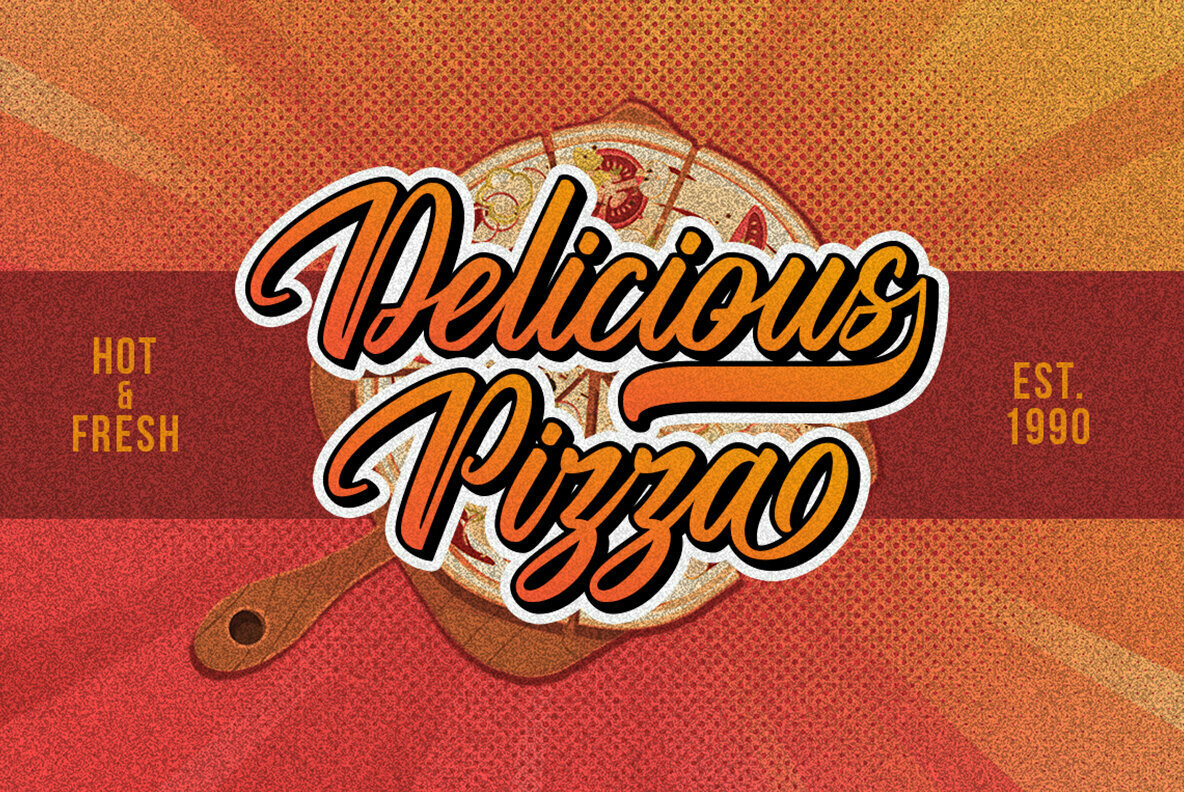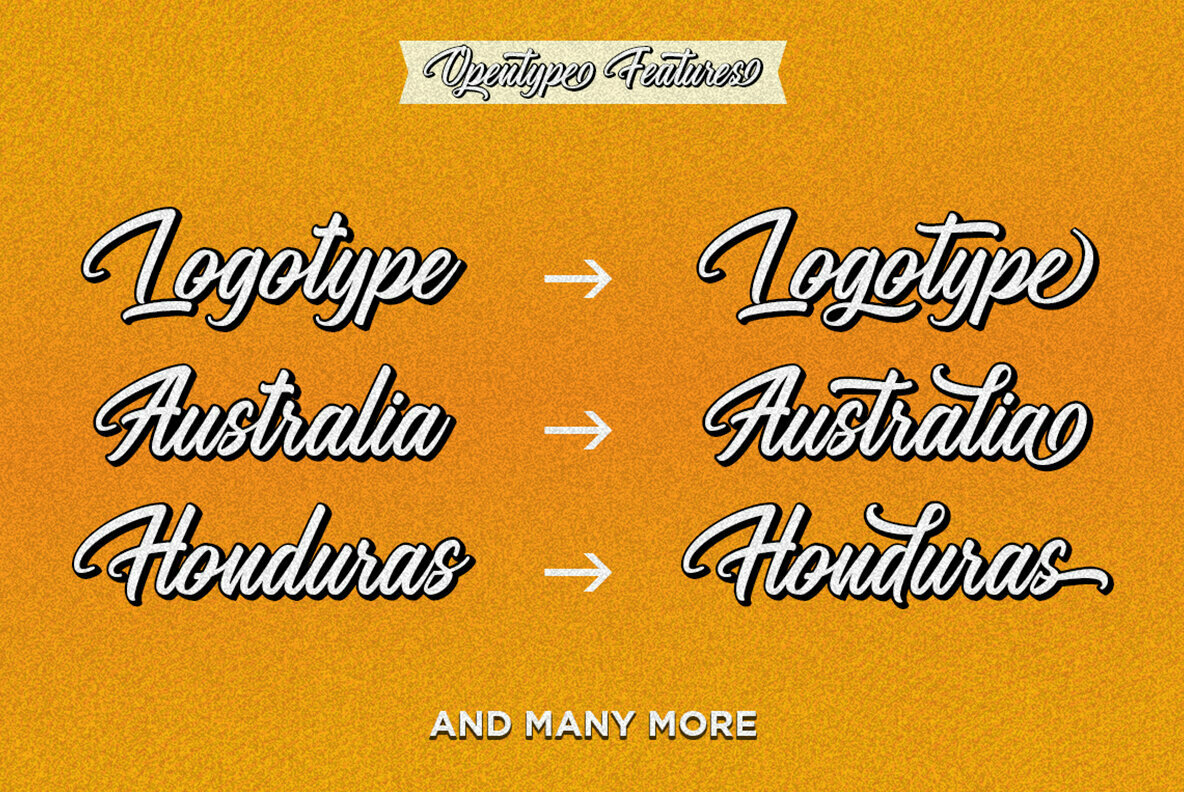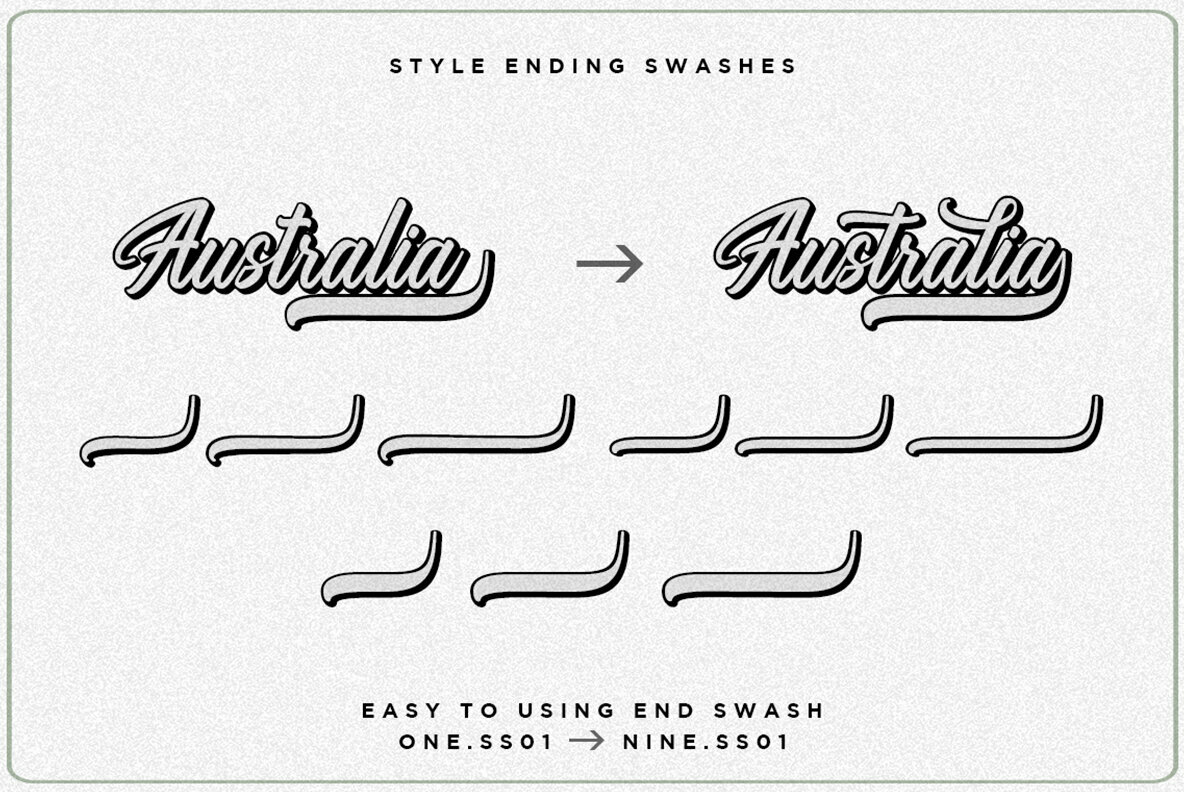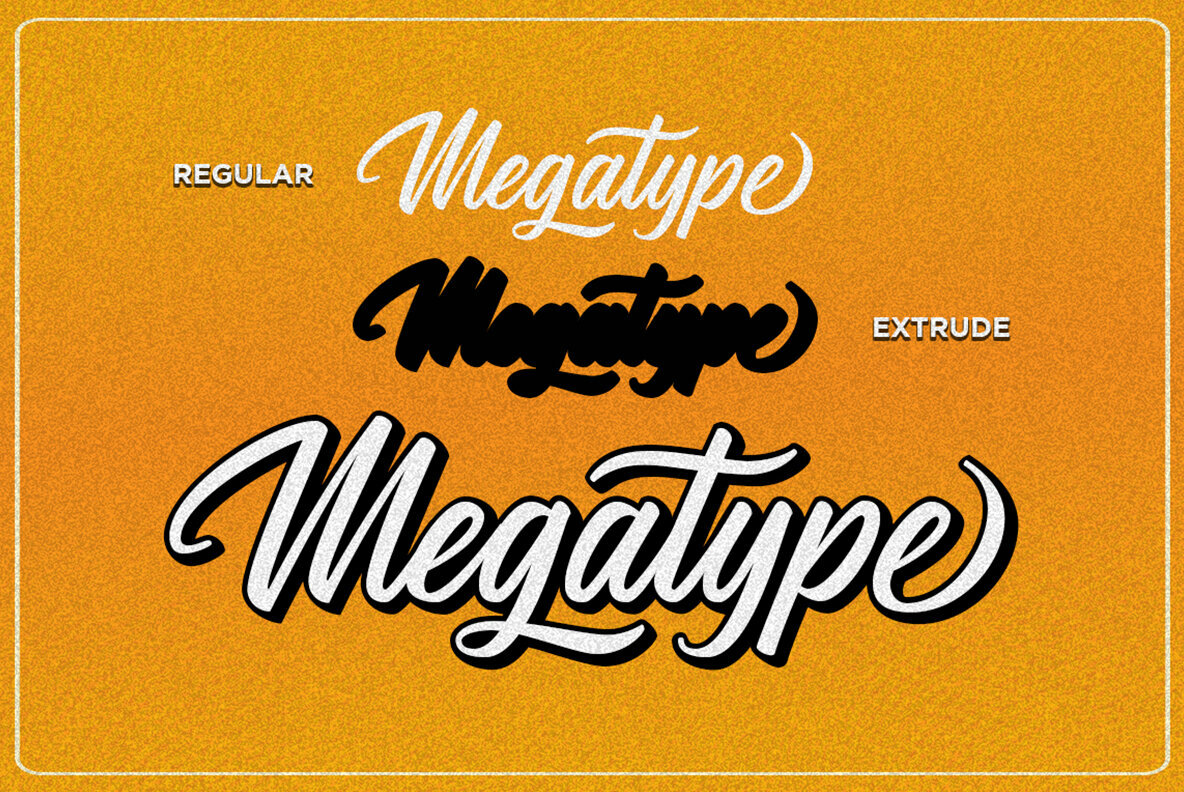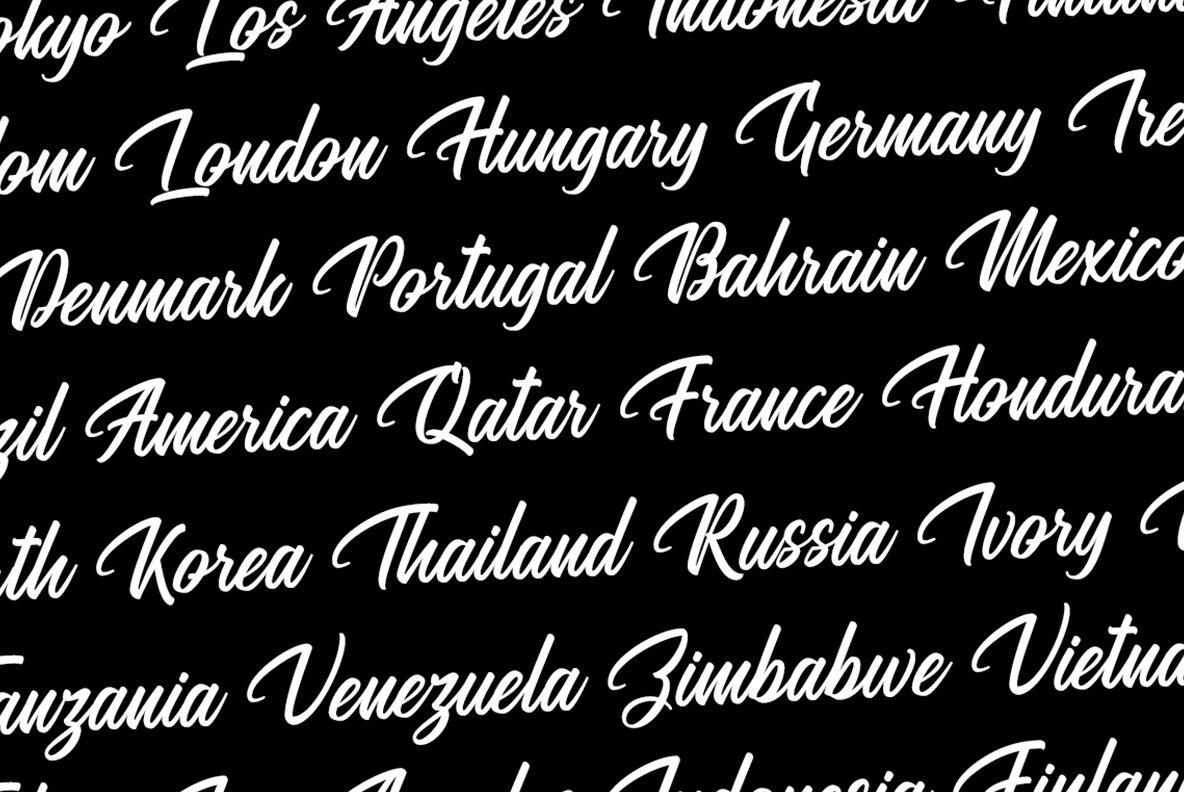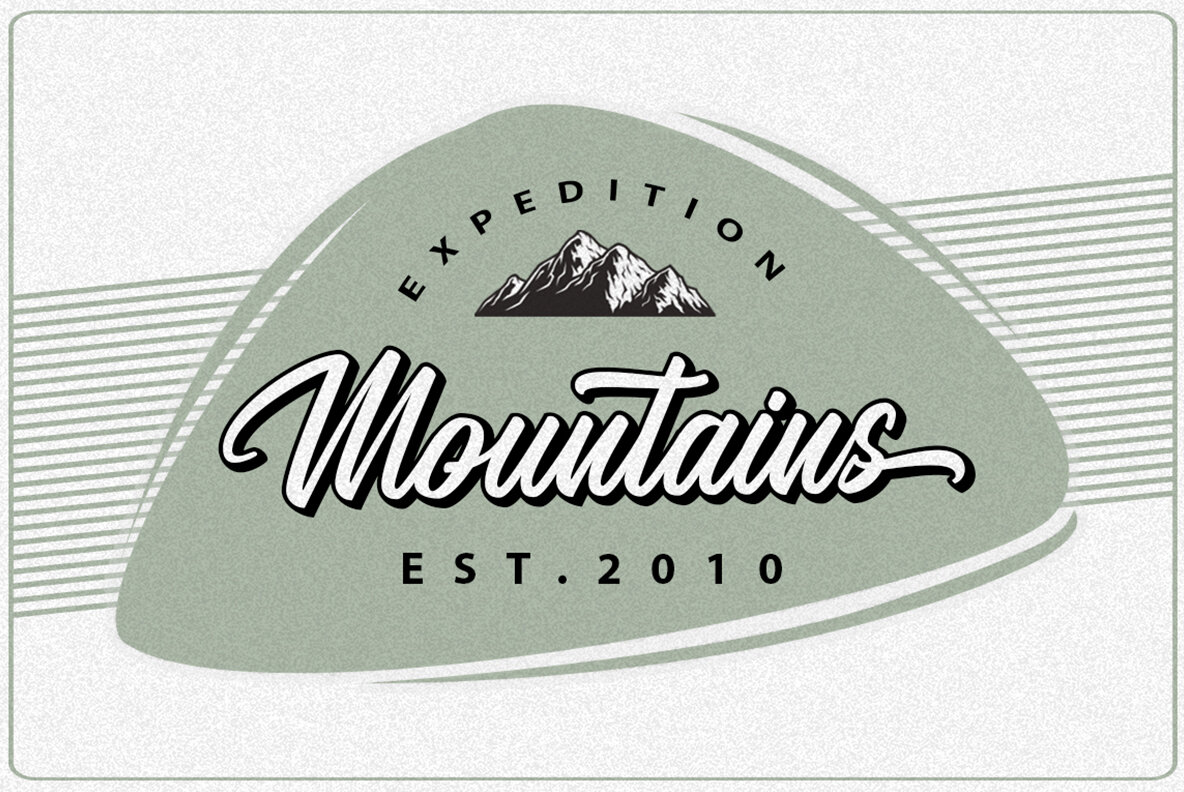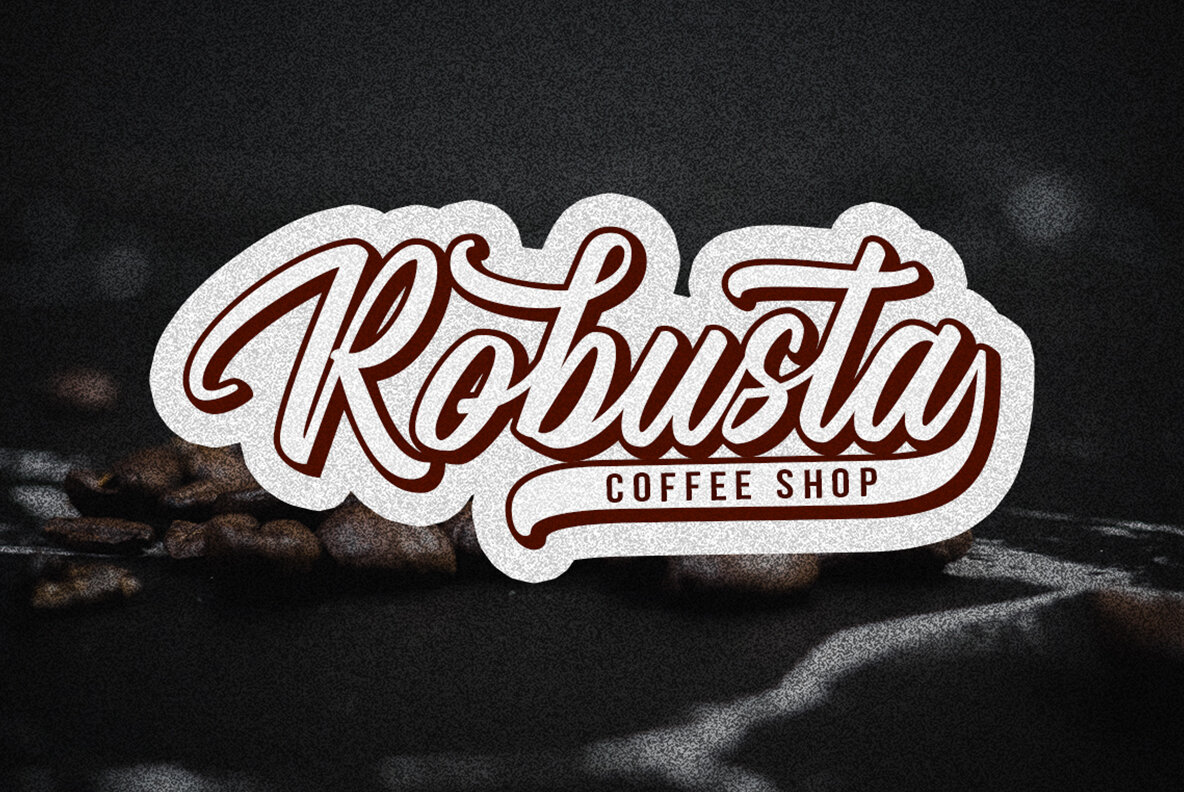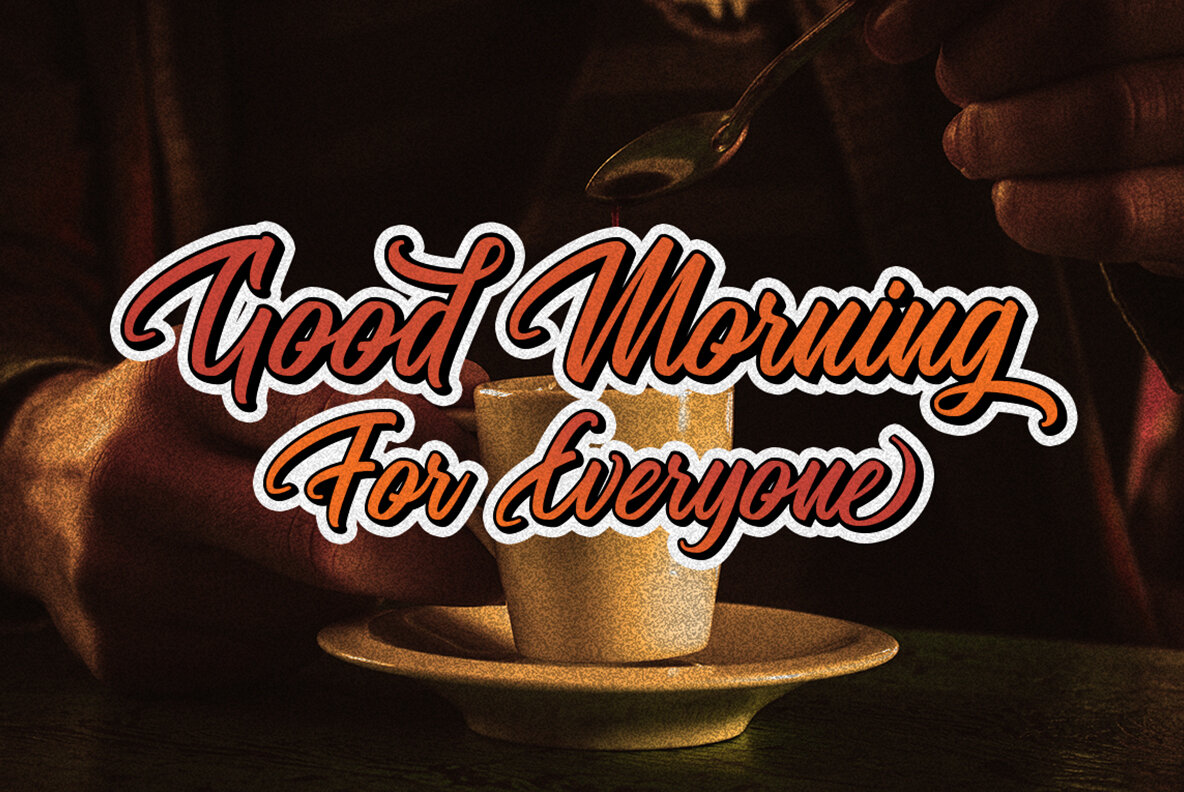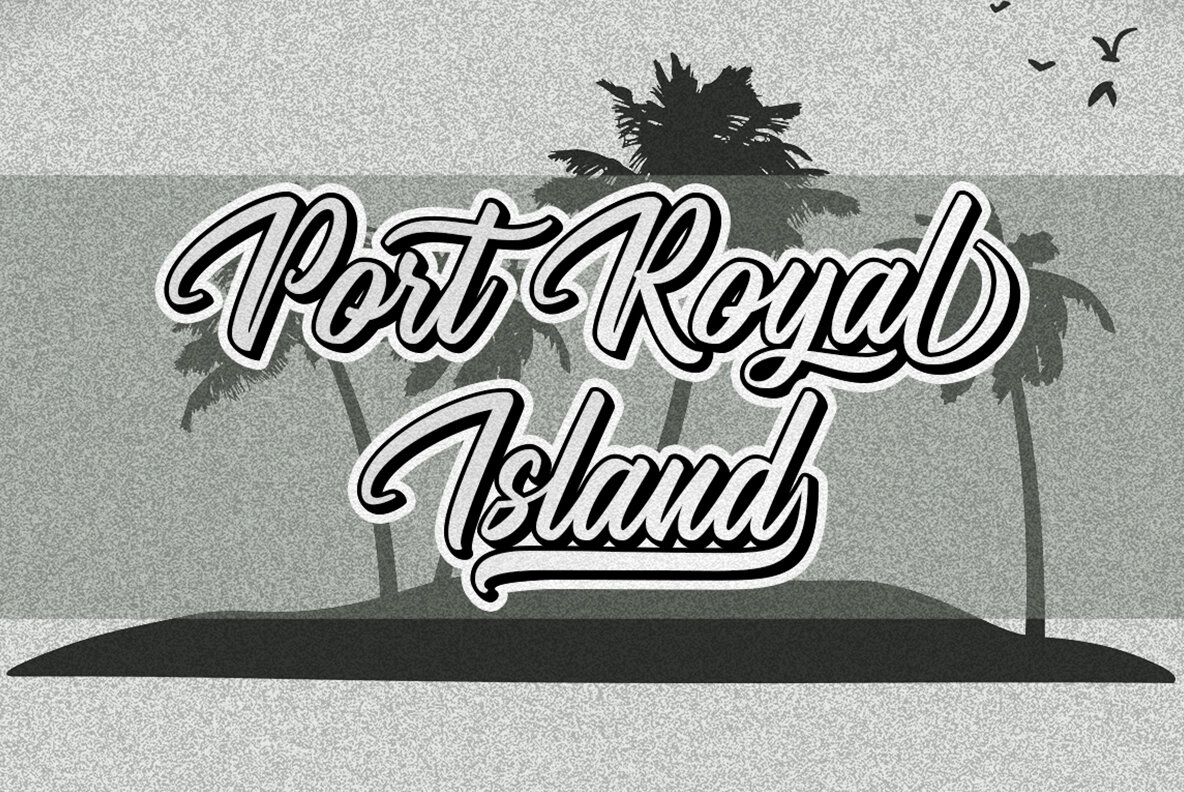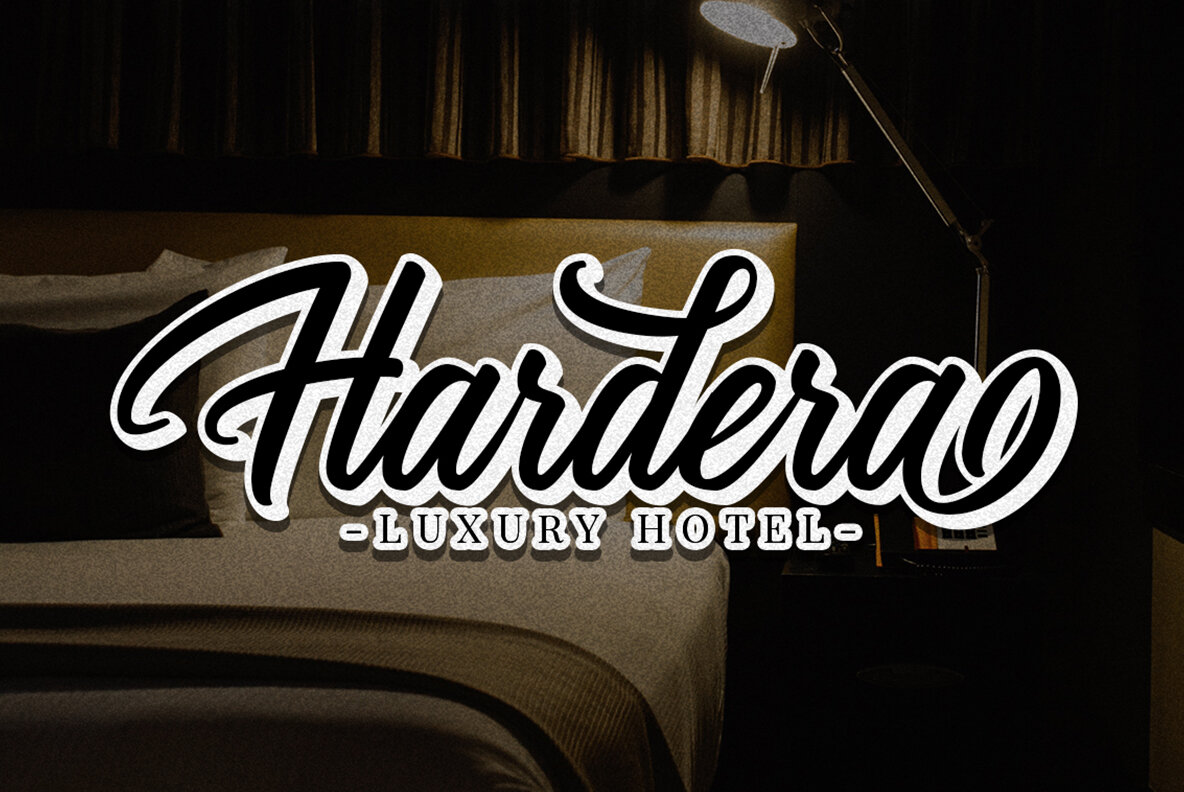
Megatype Script Font
Megatype Script is a handmade script that comes with a extrude effect. This font Inspired by Retro style and combination with Hand Lettering style. I hope this can make inspire you from your work. You don't need extra effort to create an extrude effect for this font. That's because we include the extrude with this font. This means you can saves your time by only adding the extrude font on the back layer.
Megatype Script is great for Logotype, Branding Design, Logo Design, Digital Lettering Arts, Poster, T-Shirt/Apparel, Magazine, Quotes, Signs, Instagram Design, Advertising Design, and any Type Design needs.
Megatype Script also has a standard Multilingual Support.